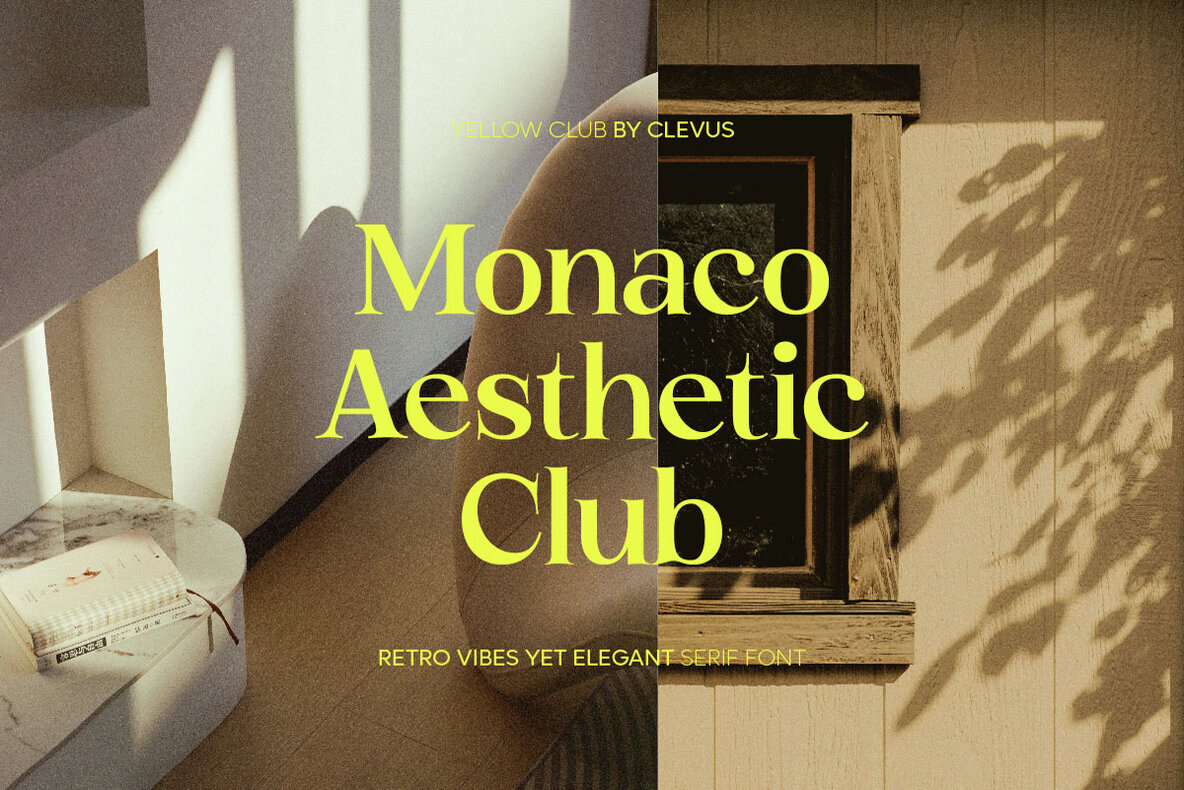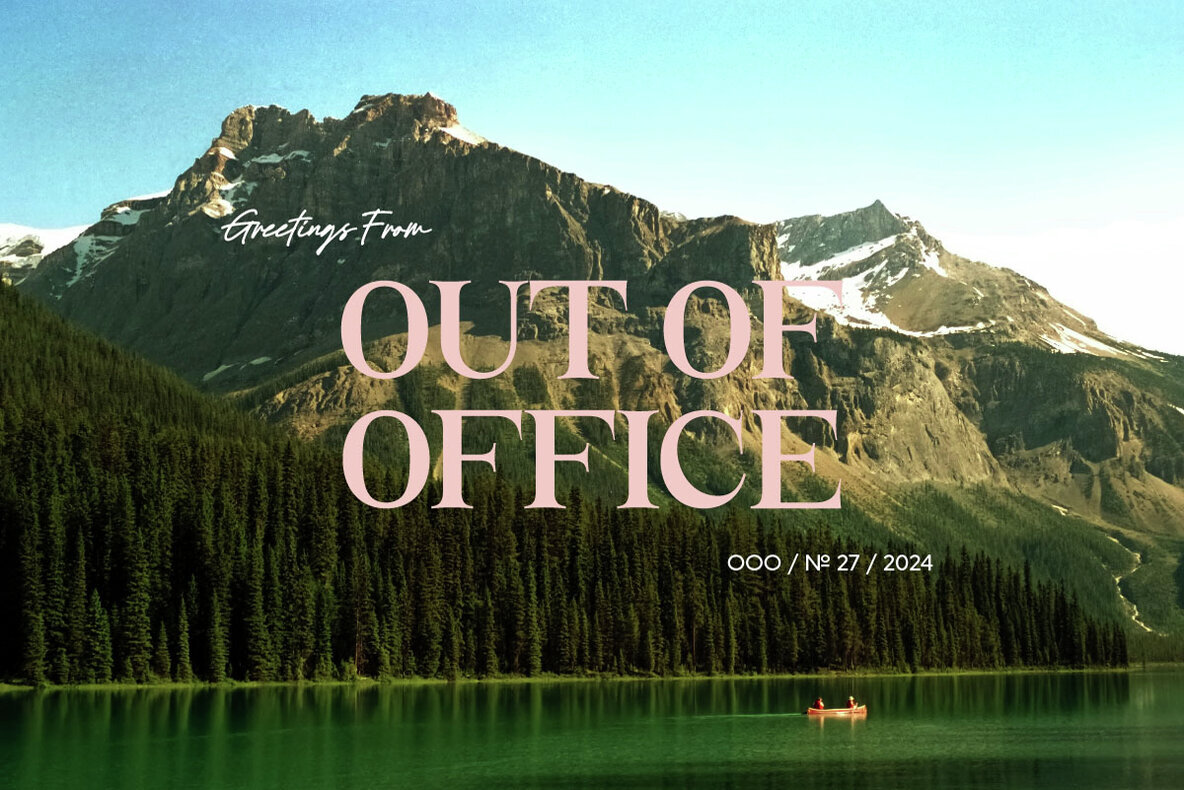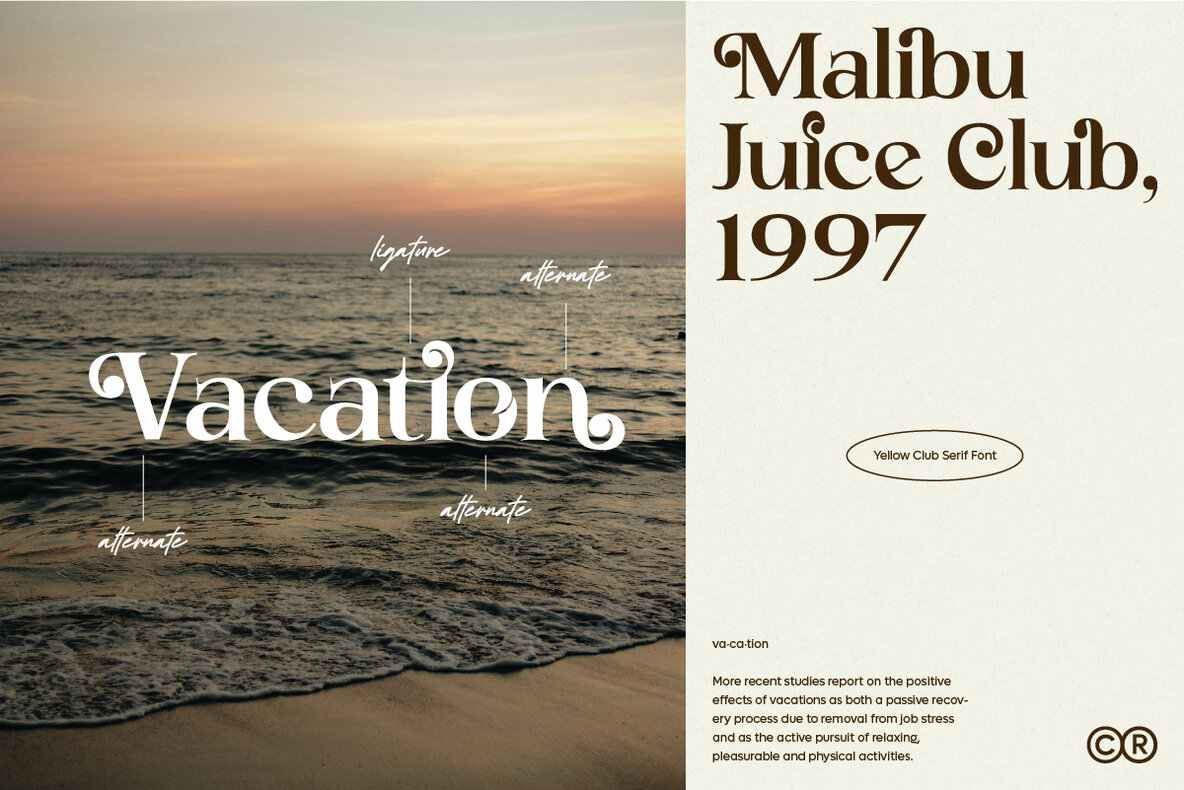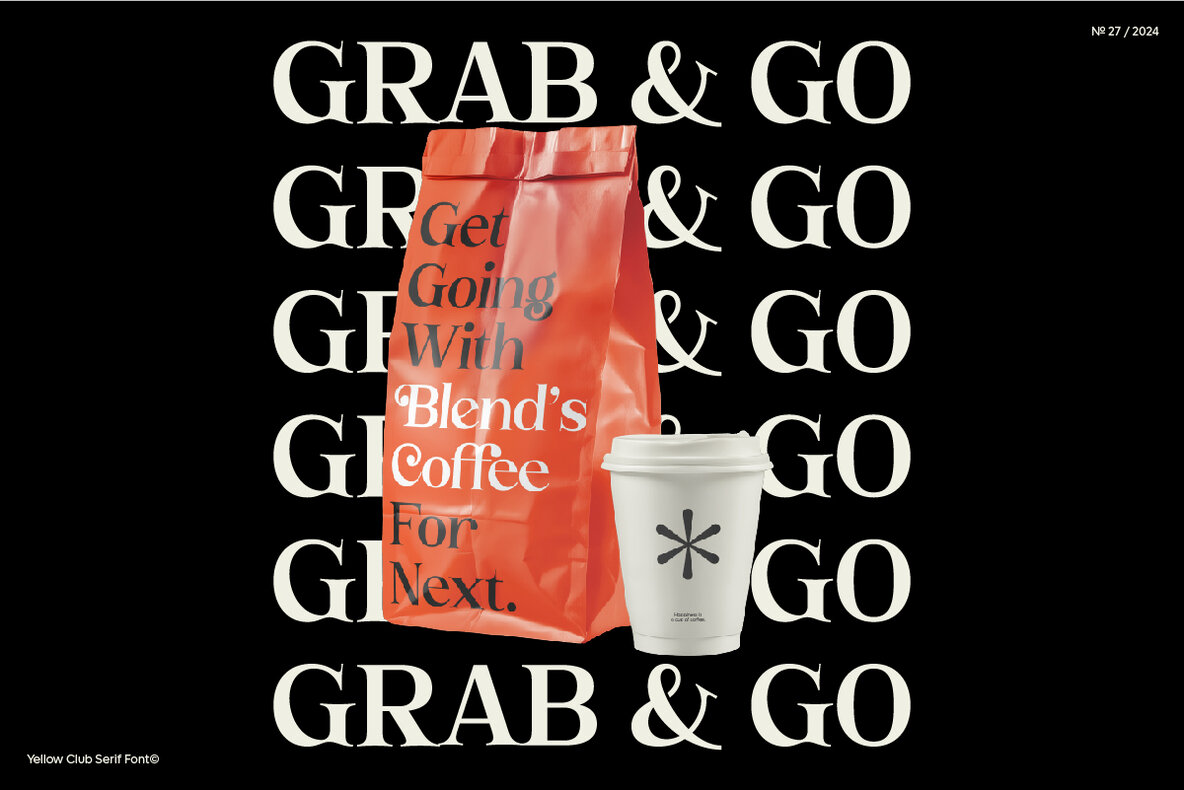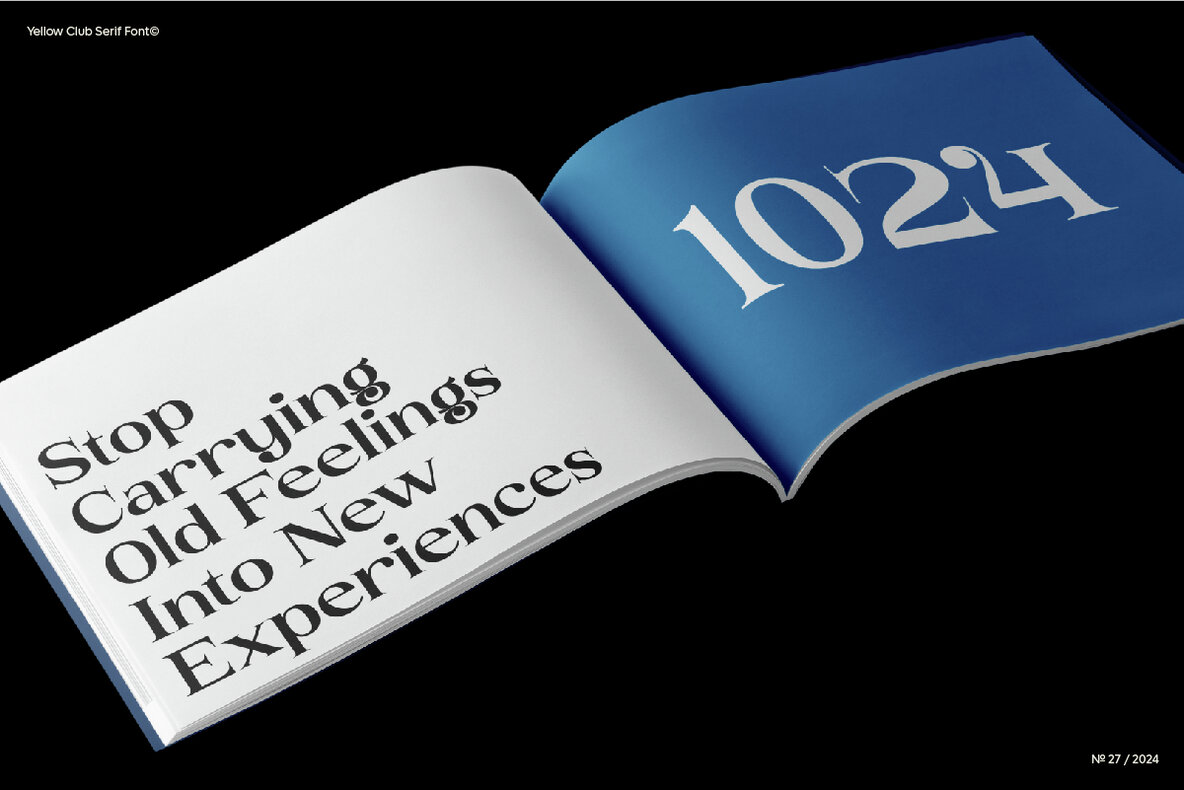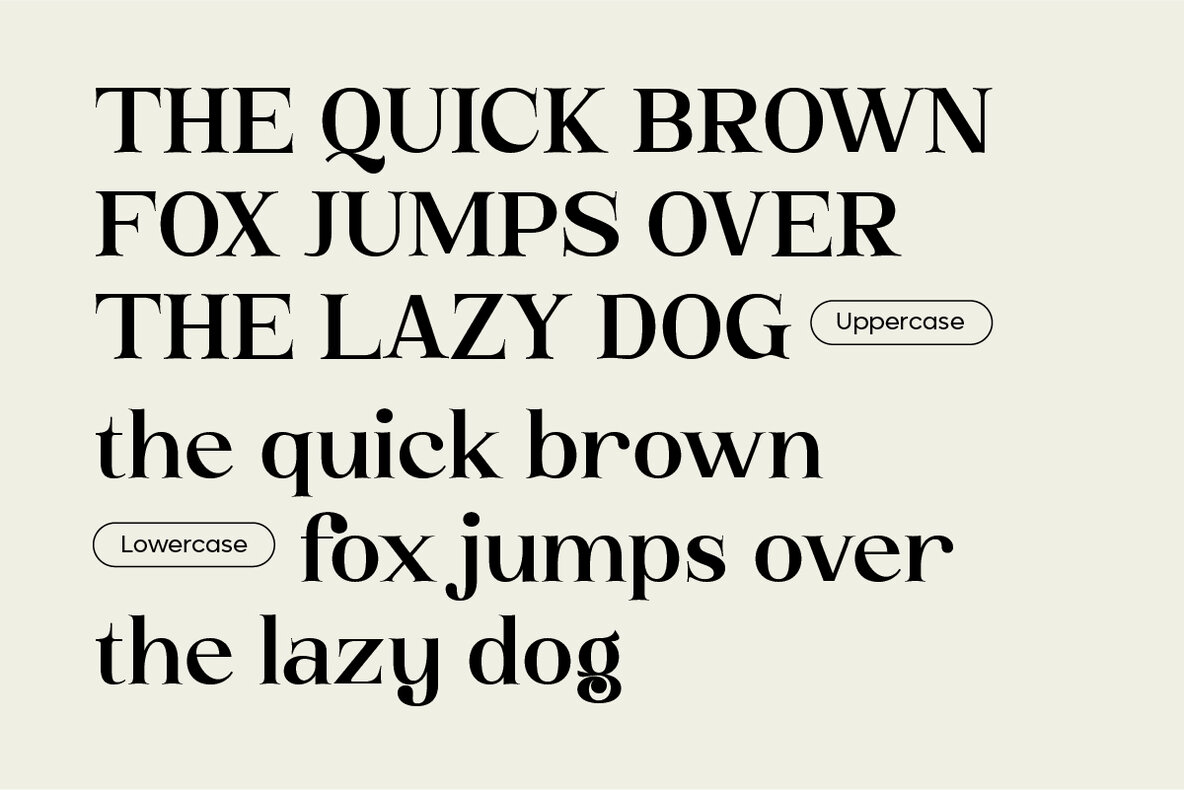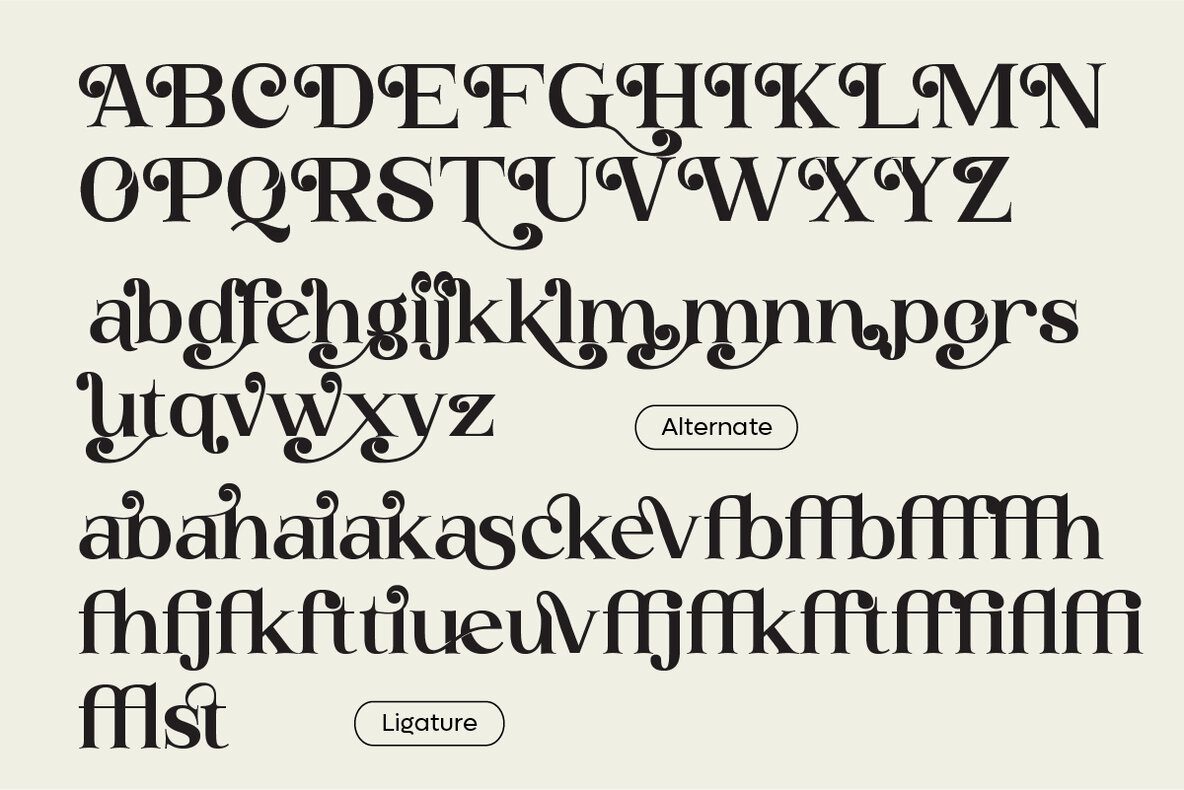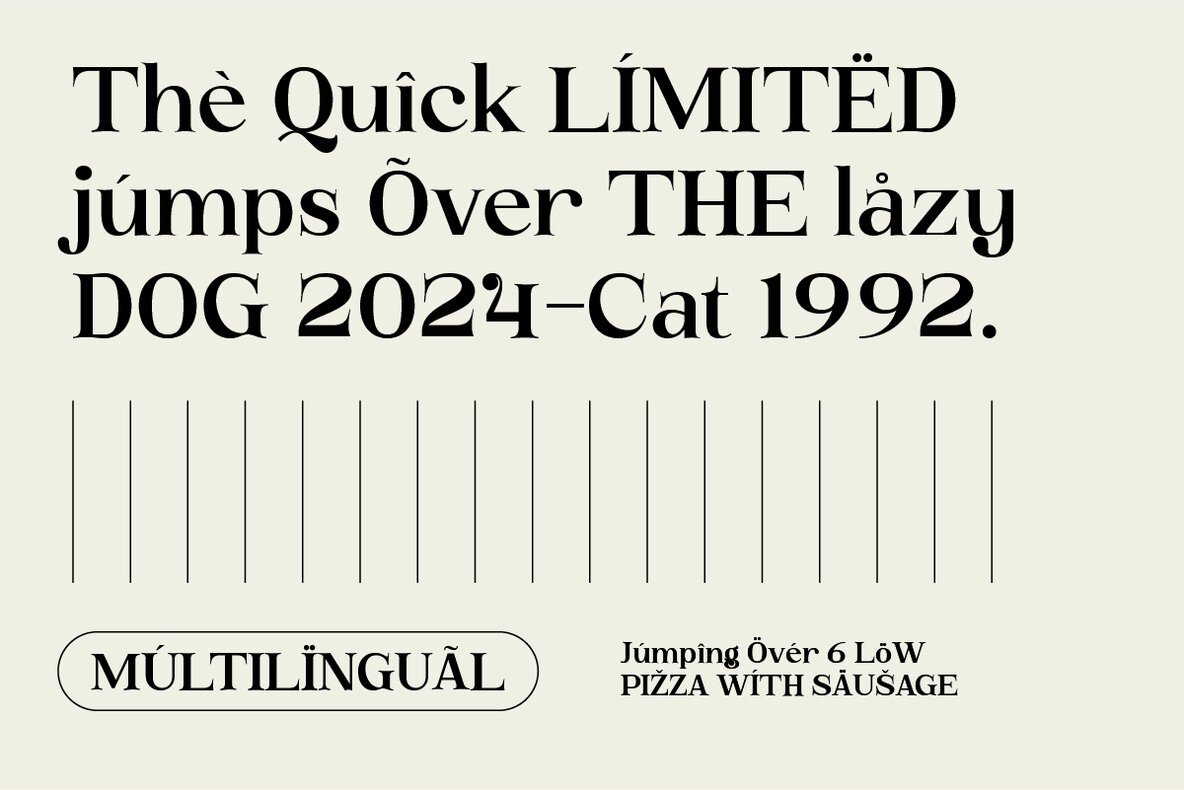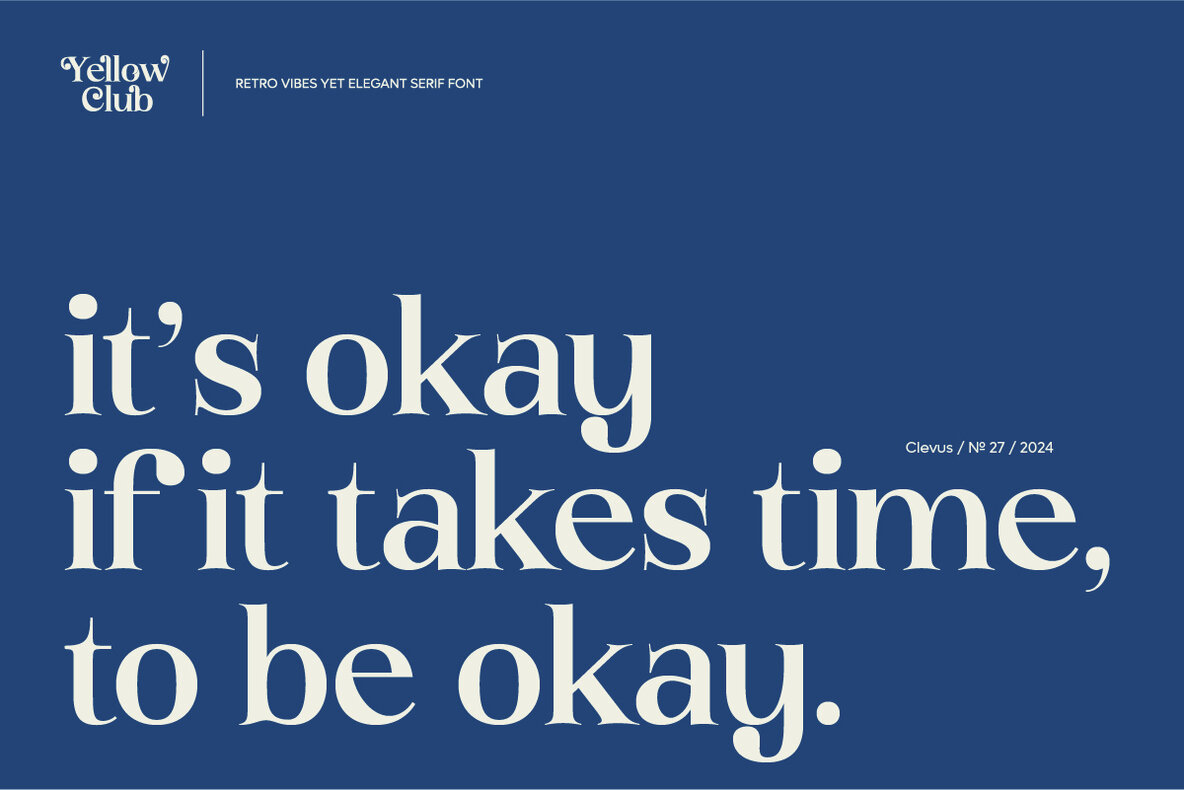
Yellow Club Font
Yellow Club Regular
Yellow Club is a retro yet elegant serif font that brings a vintage vibe to your designs. It features 60 unique alternates and ligatures, making it highly versatile for a variety of projects. From stunning logos and eye-catching quotes to captivating blog posts, branding projects, magazine imagery, wedding invitations, and posters, Yellow Club has you covered. This font includes letters, numbers, symbols, punctuation, and multilingual support, ensuring it can be used in numerous languages and contexts.